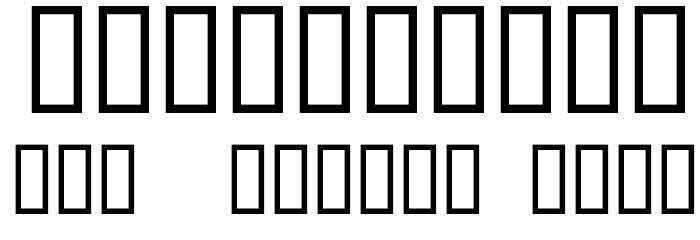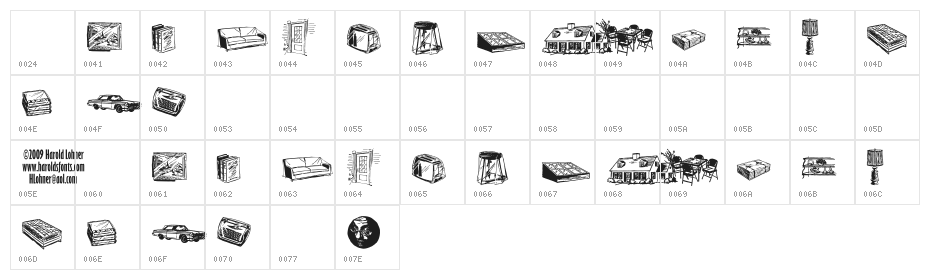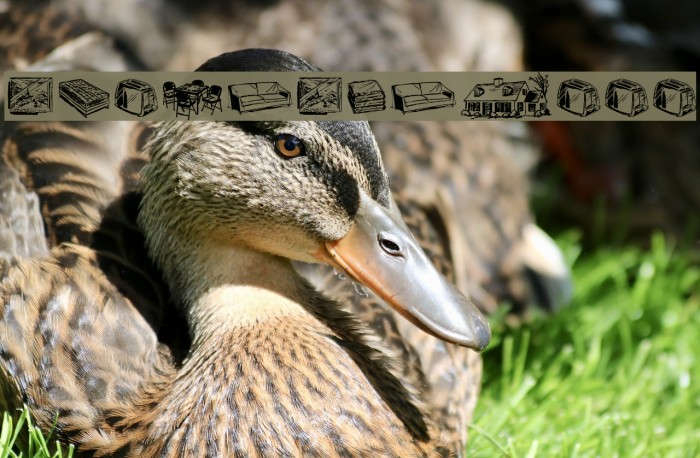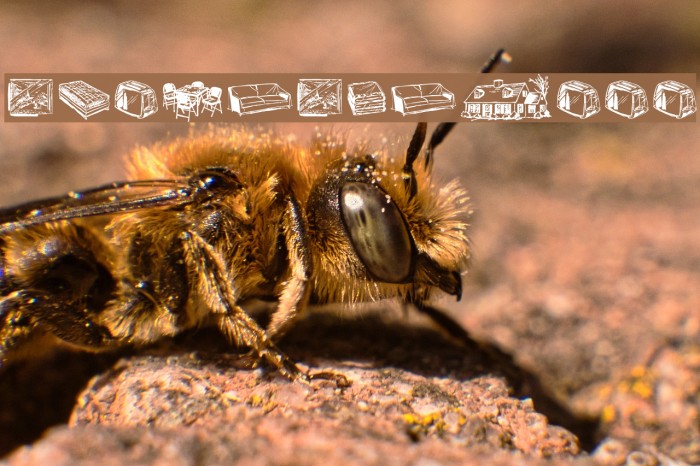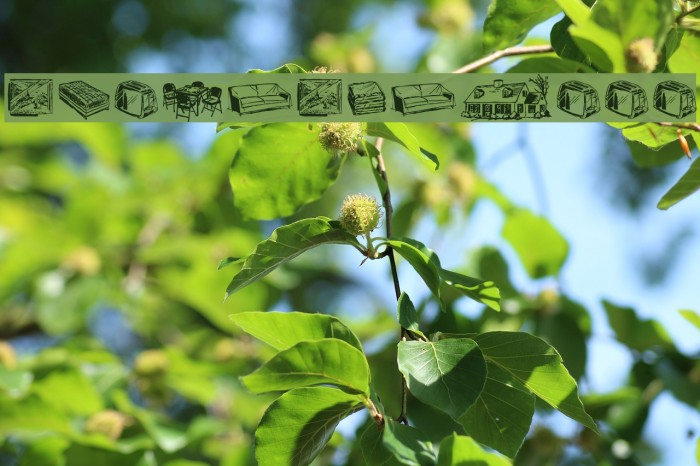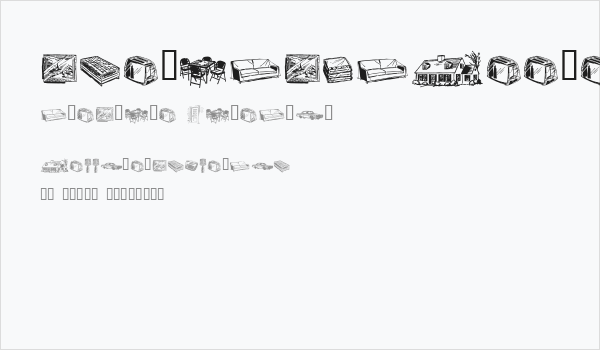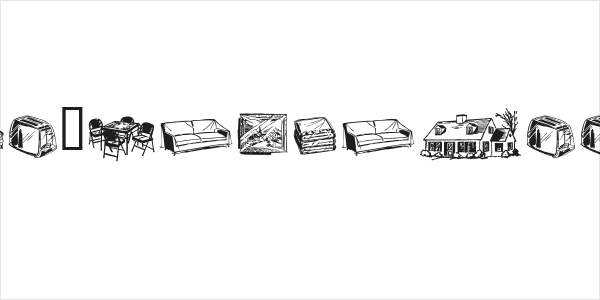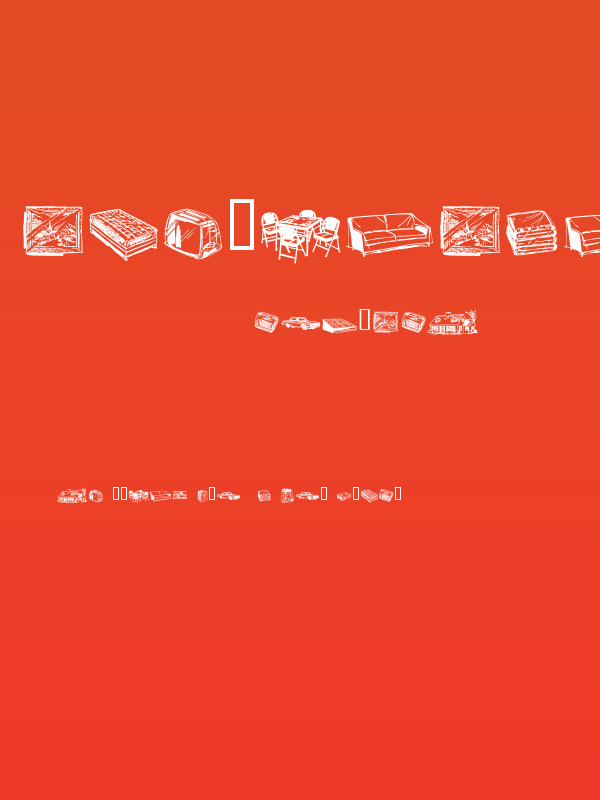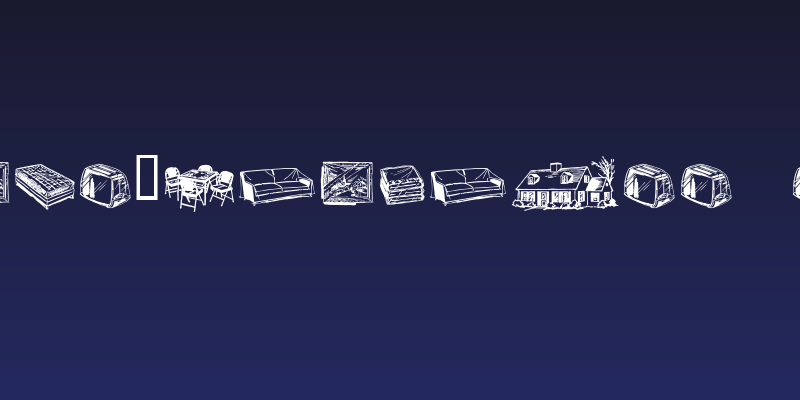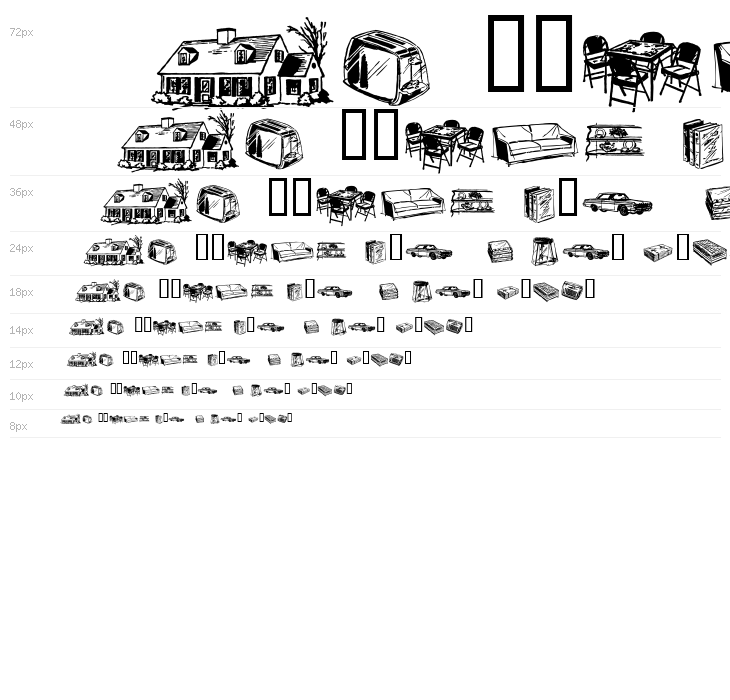
AmericanCheese Font
AmericanCheese Description
A decorative display font composed of hand-drawn illustrations of various household items, vehicles, and furniture, each representing a different character. The glyphs are detailed, sketch-like, and visually distinct, making the font highly illustrative and thematic.
| Overall Style | Decorative, Vintage, Illustrative |
| Use Case | Logos, Posters, Themed Headlines, Creative Projects |
| Proposed Projects | Posters, themed invitations, educational materials, creative branding, retro or vintage design projects. |